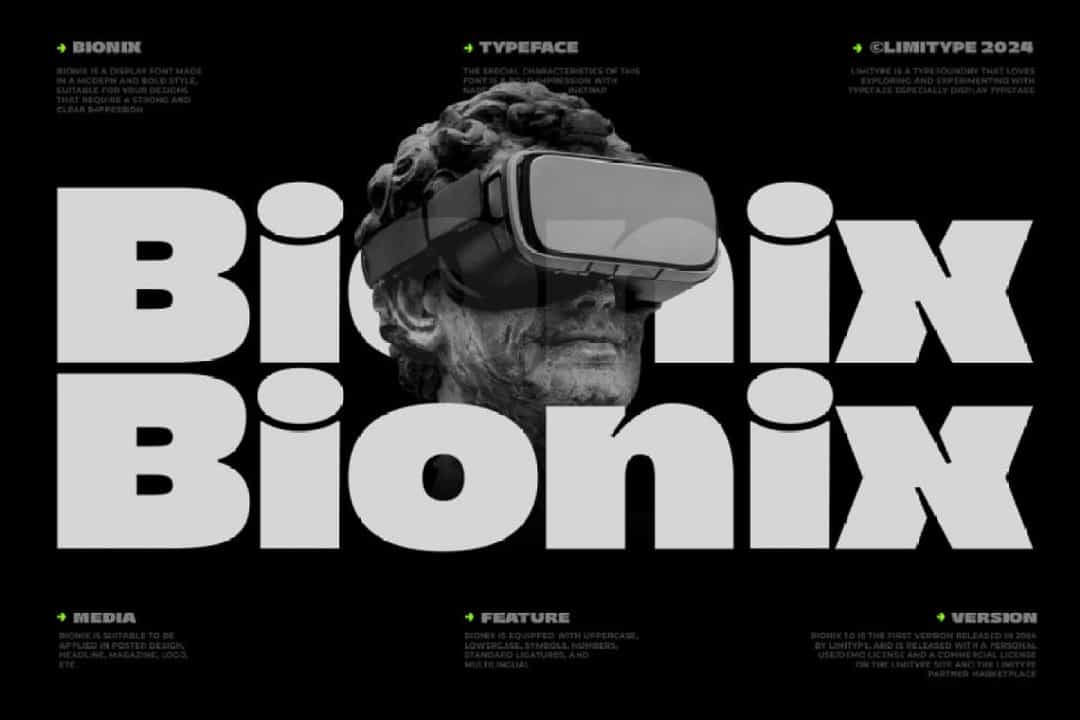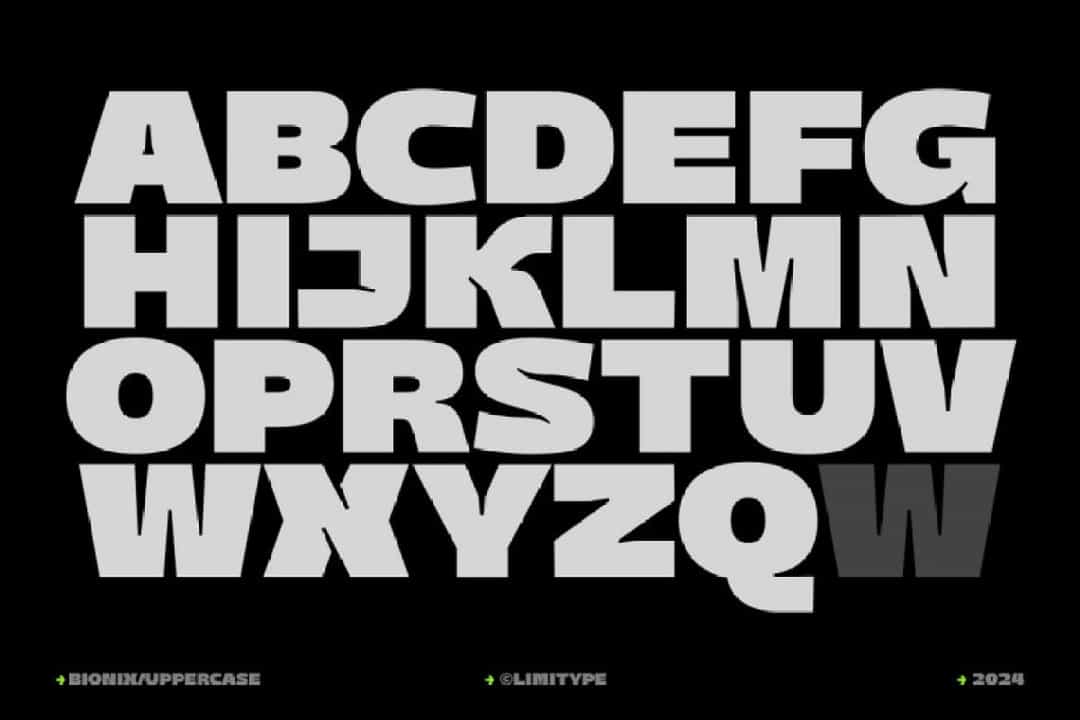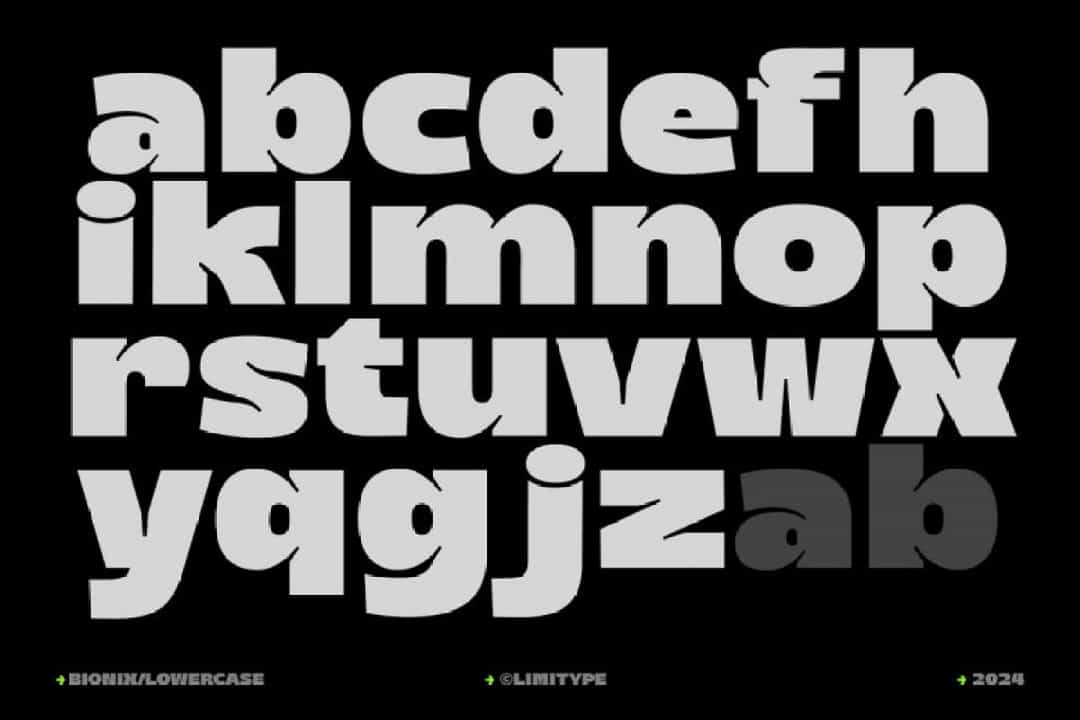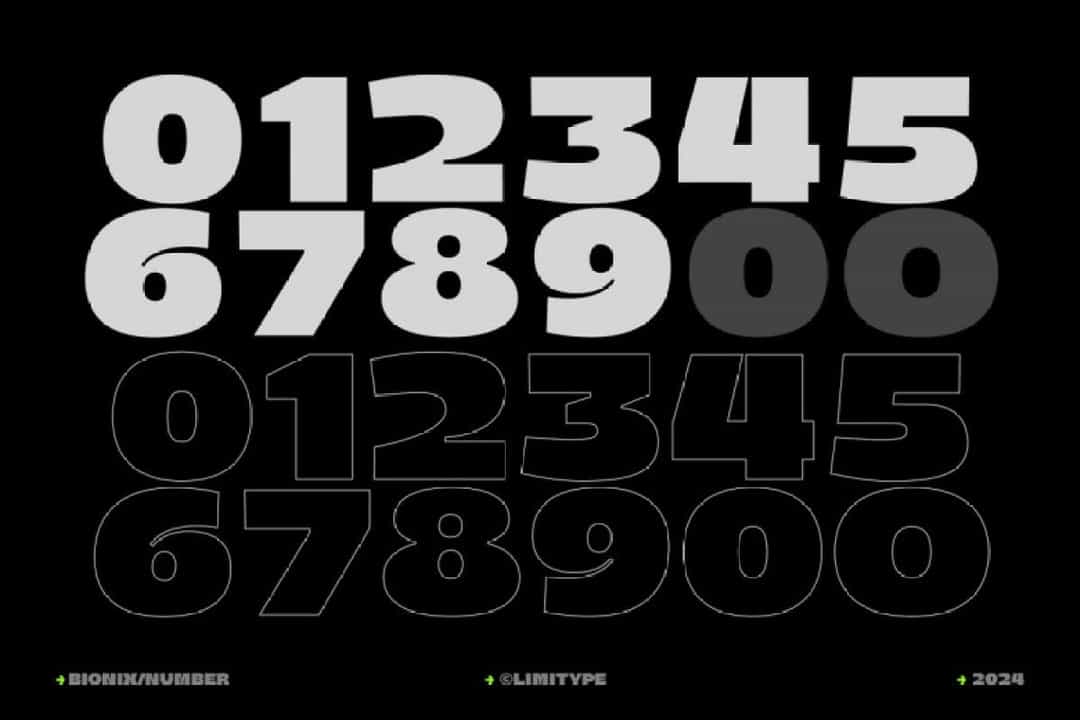
Discover Bionix Font, part of the Sans Serif Display collection—a versatile and unique font perfect for adding a personal touch to your projects. Download it for free and enjoy crafting designs with style, from invitations to social media posts. This font is available exclusively for personal use, giving you the freedom to create without limits. Unlock your creativity with Bionix Font today!
Bionix can be described as an Sans display typeface with modern and bold style, featuring an inktrap to give it character. Ideal for designs needing an impressive yet clear appearance in media while remaining modern and enjoyable – posters, headlines, banners, logos etc – Bionix font is suitable for posters, headlines, banners logos etc and should always look their best!